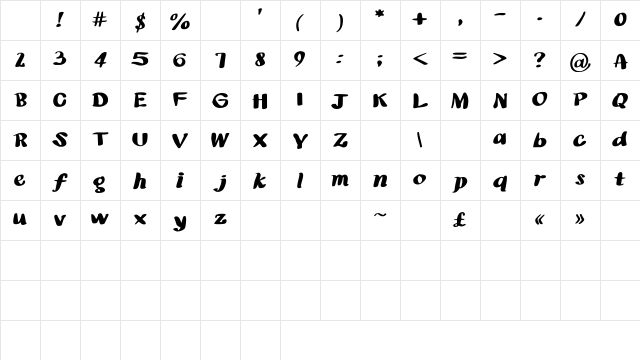
Complete pancakeslims Medium glyph index. Displaying only characters natively supported by pancakeslims Medium font.
pancakeslims is a composed and adaptable typeface that performs quietly and consistently across a wide range of design contexts.